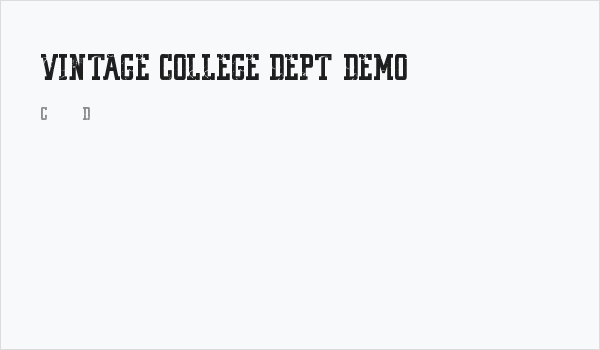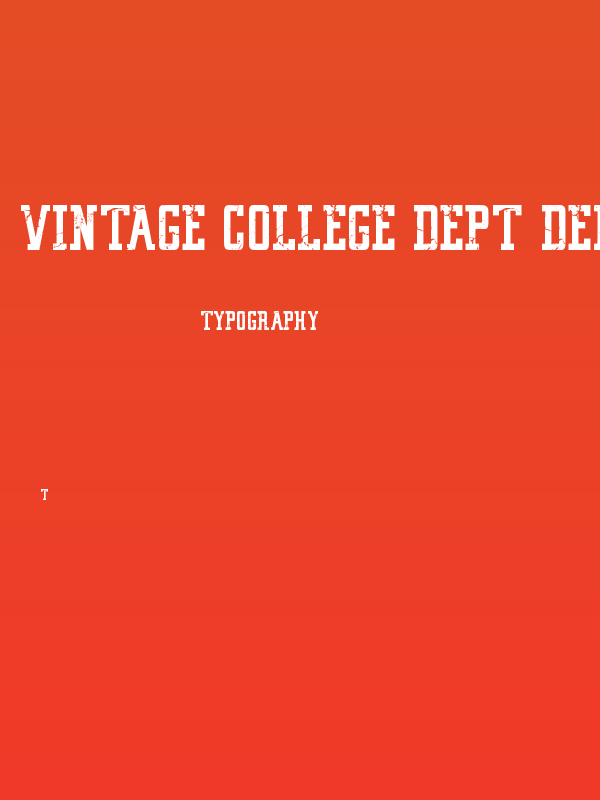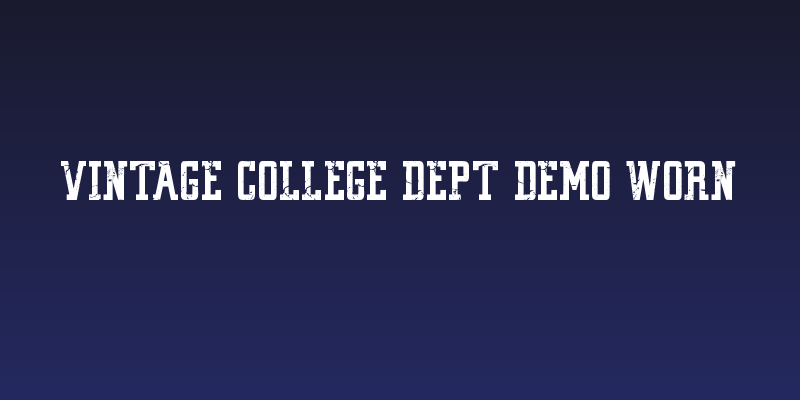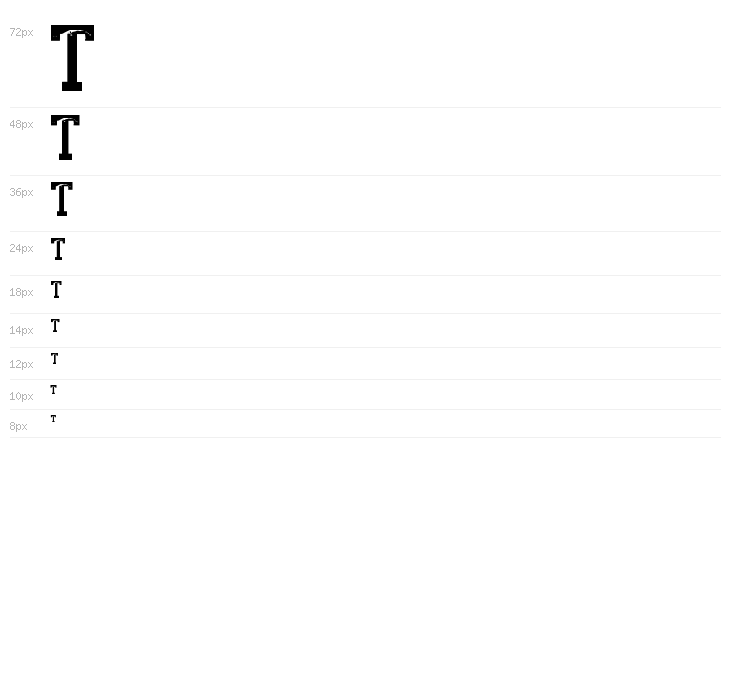
VINTAGE COLLEGE DEPT_DEMO_worn Font
VINTAGE COLLEGE DEPT_DEMO_worn Description
This font features a bold, collegiate style with a distressed, worn texture that gives it a vintage and rugged appearance. The characters are all uppercase, with a strong, blocky structure that is reminiscent of traditional varsity or sports team lettering. The distressed effect adds a unique character, making it suitable for designs that require a retro or aged look. The font's boldness and texture make it stand out, ideal for creating impactful headlines or logos that need to convey strength and nostalgia.
| Proposed Projects | Ideal for sports team branding, vintage-themed posters, apparel design, and retro-style logos. |